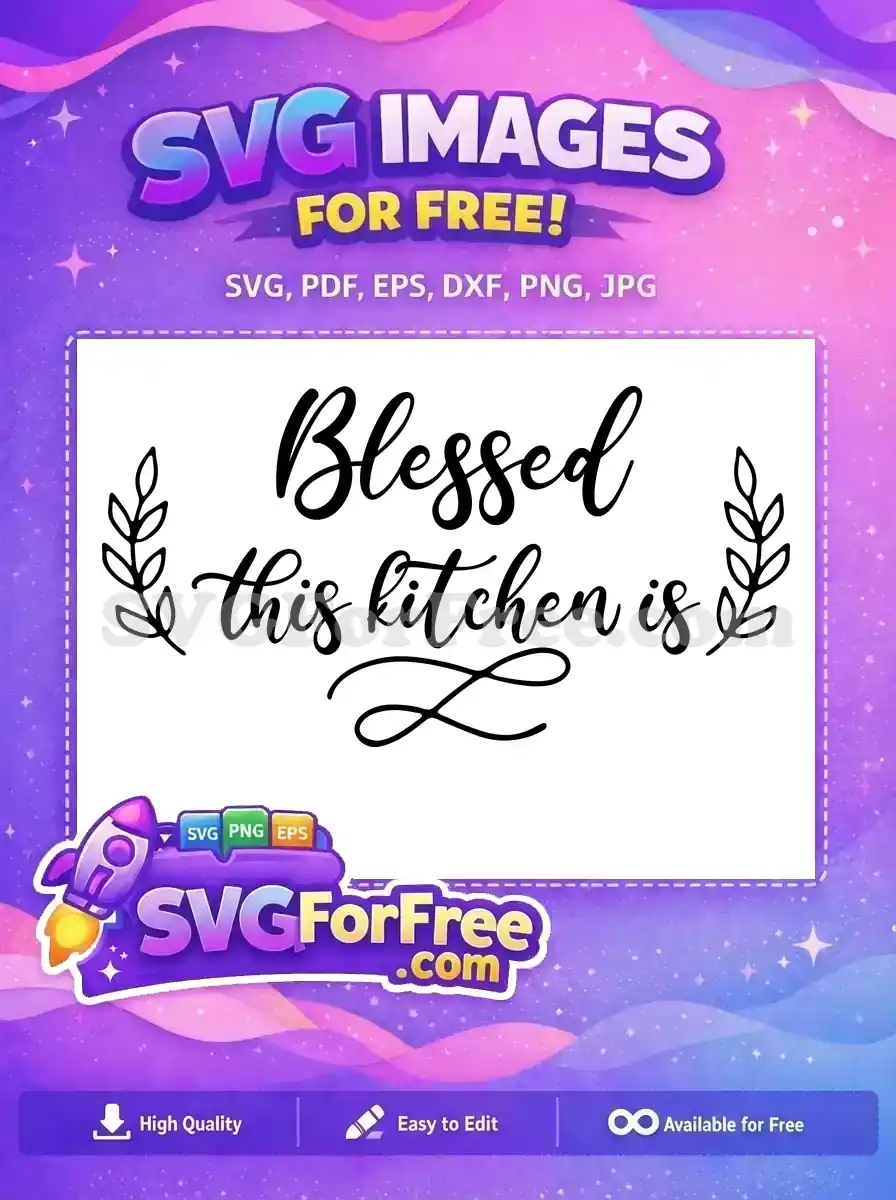
Free Blessed Script Font Free Leafy Branches Kitchen Cooking Quote Free SVG – Instant Download
An elegant ‘Blessed this kitchen is’ quote with delicate leafy branches. A beautiful and free design for home decor.
Free Blessed Script Font Free Leafy Branches Kitchen Cooking Quote Free SVG